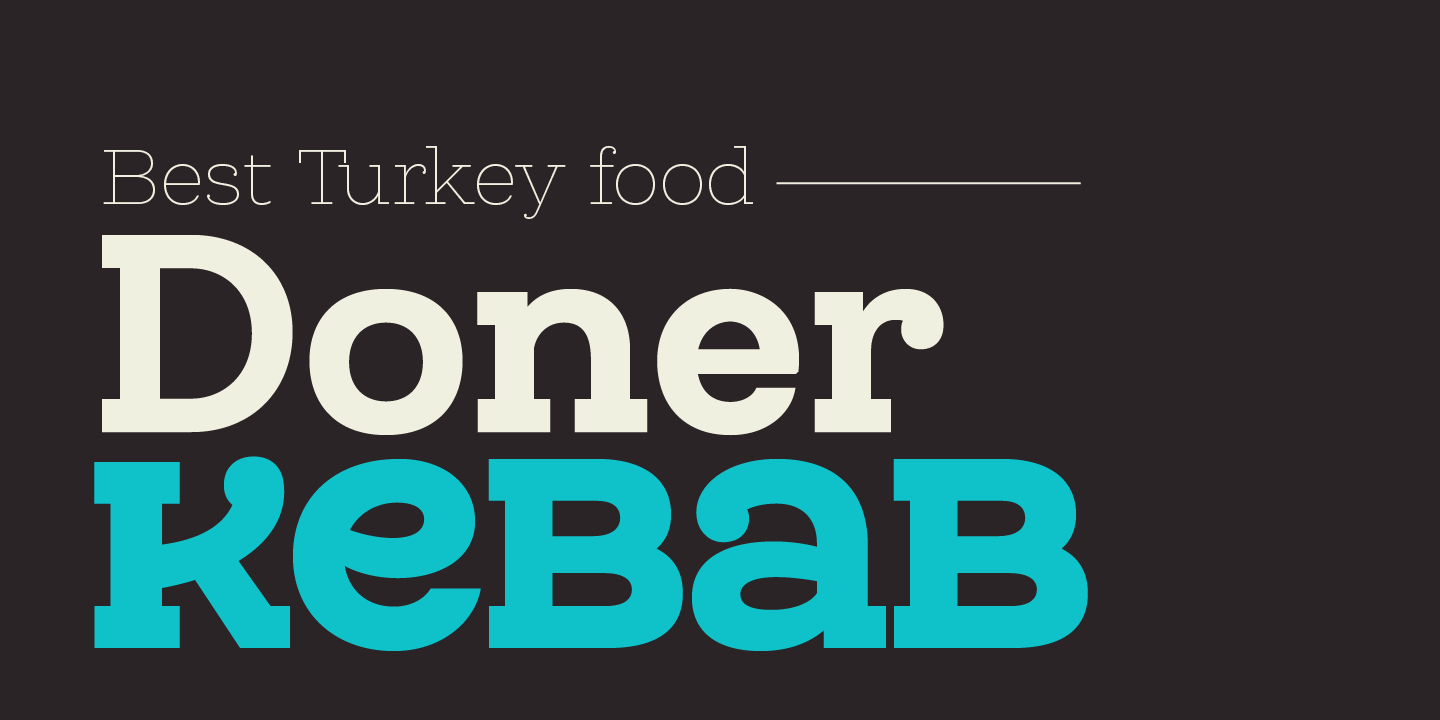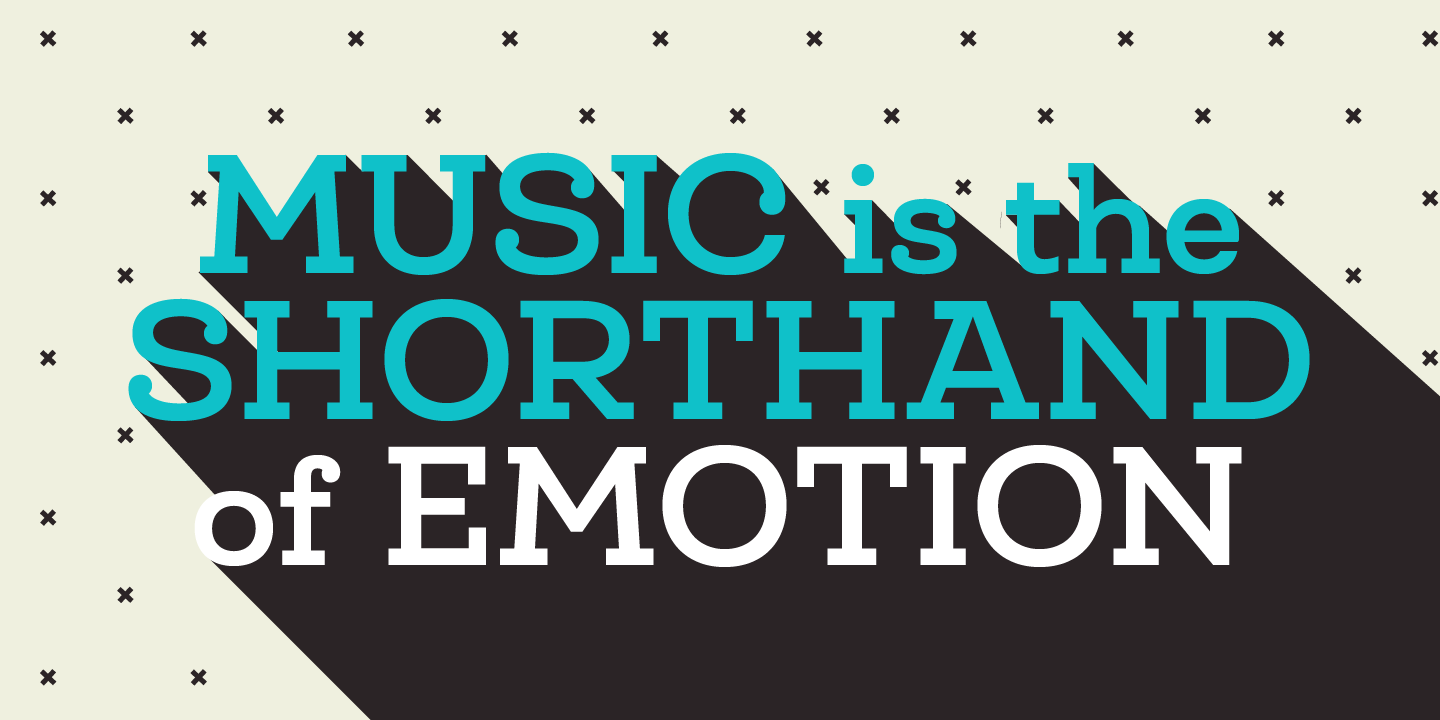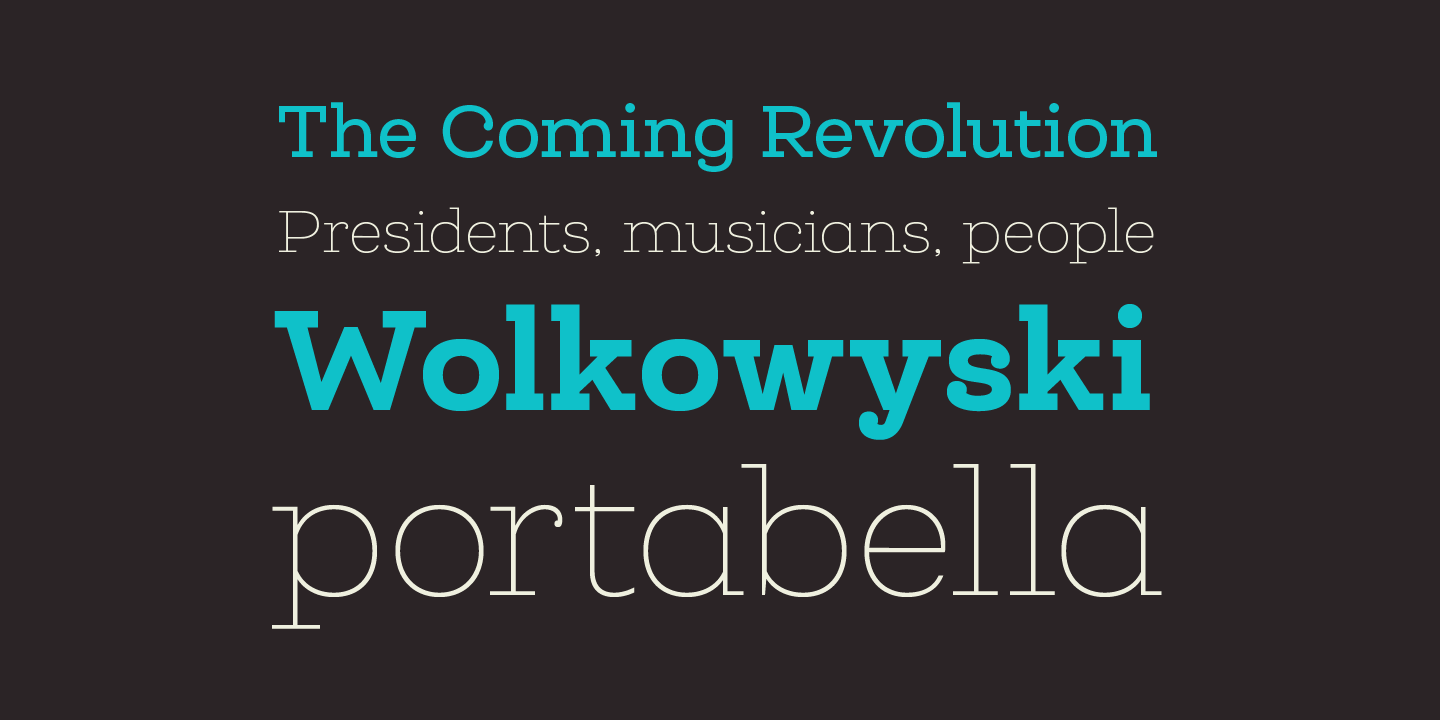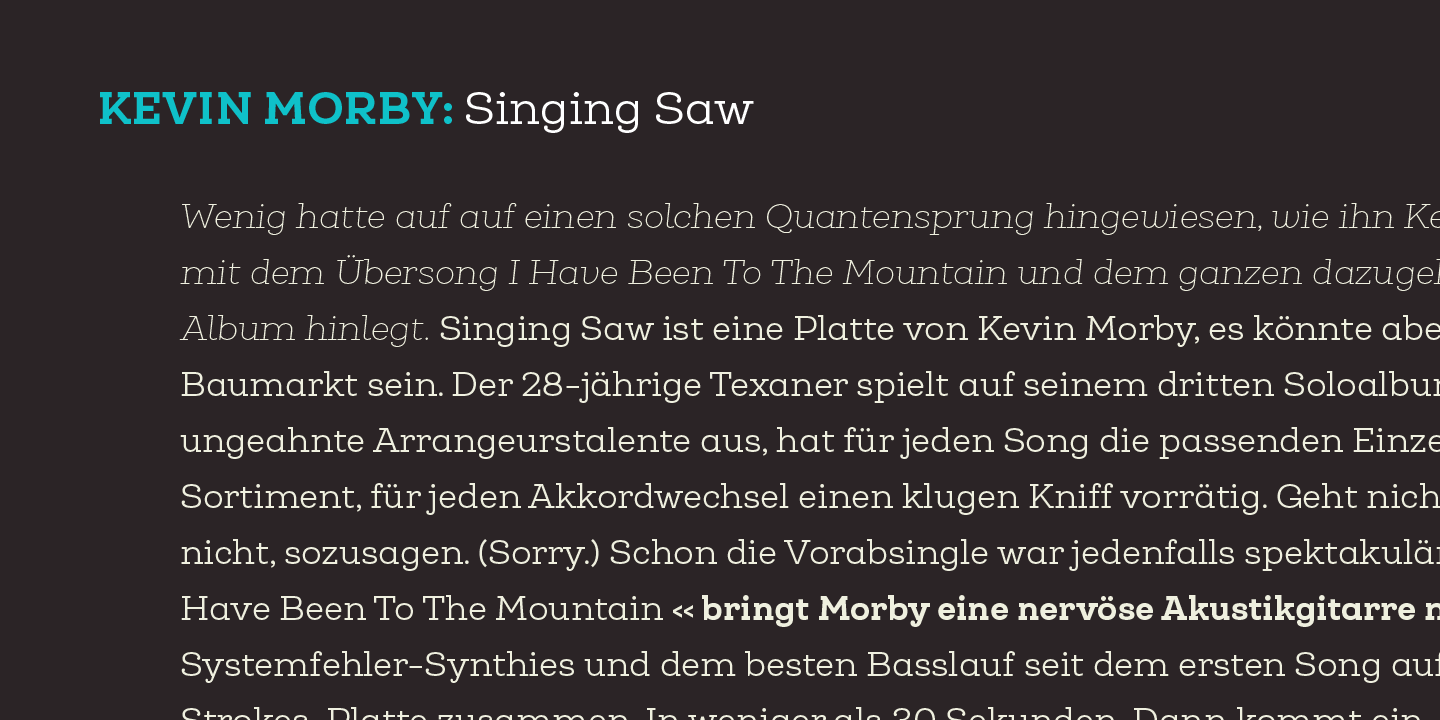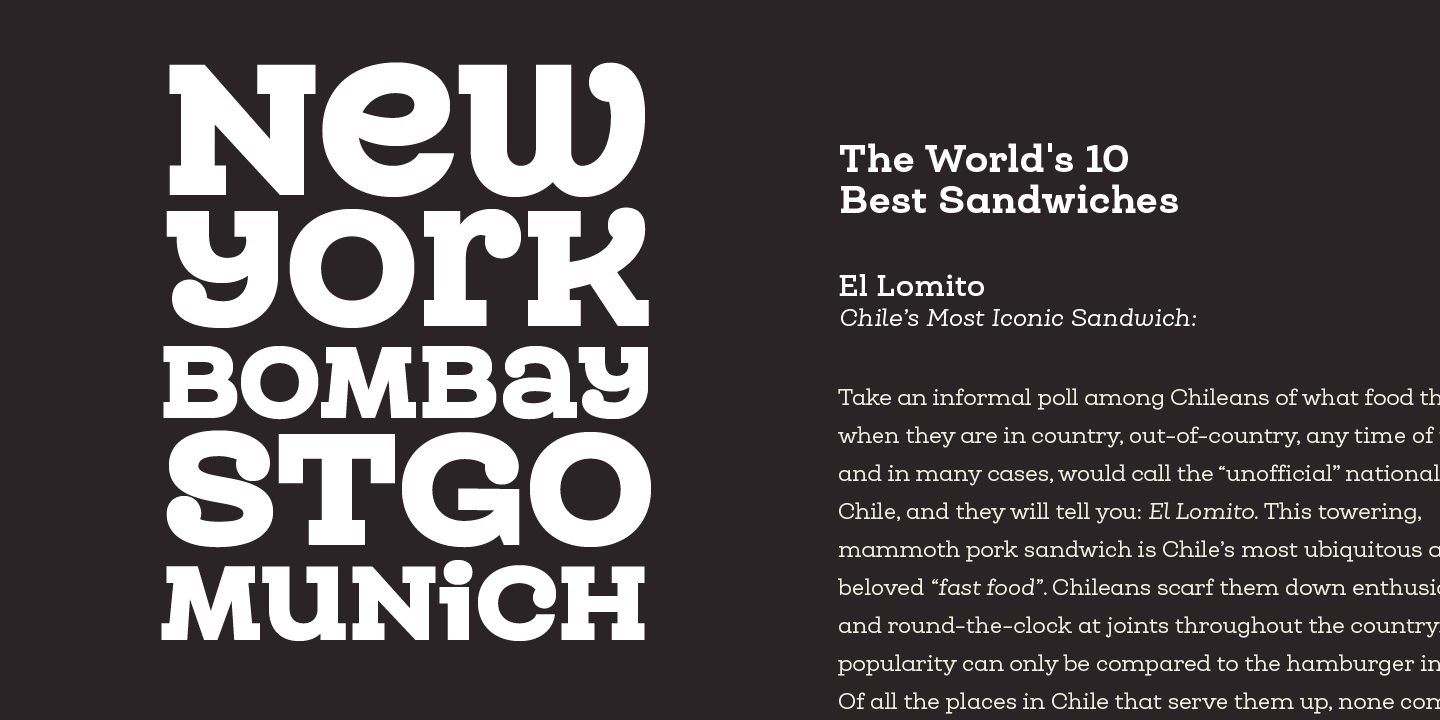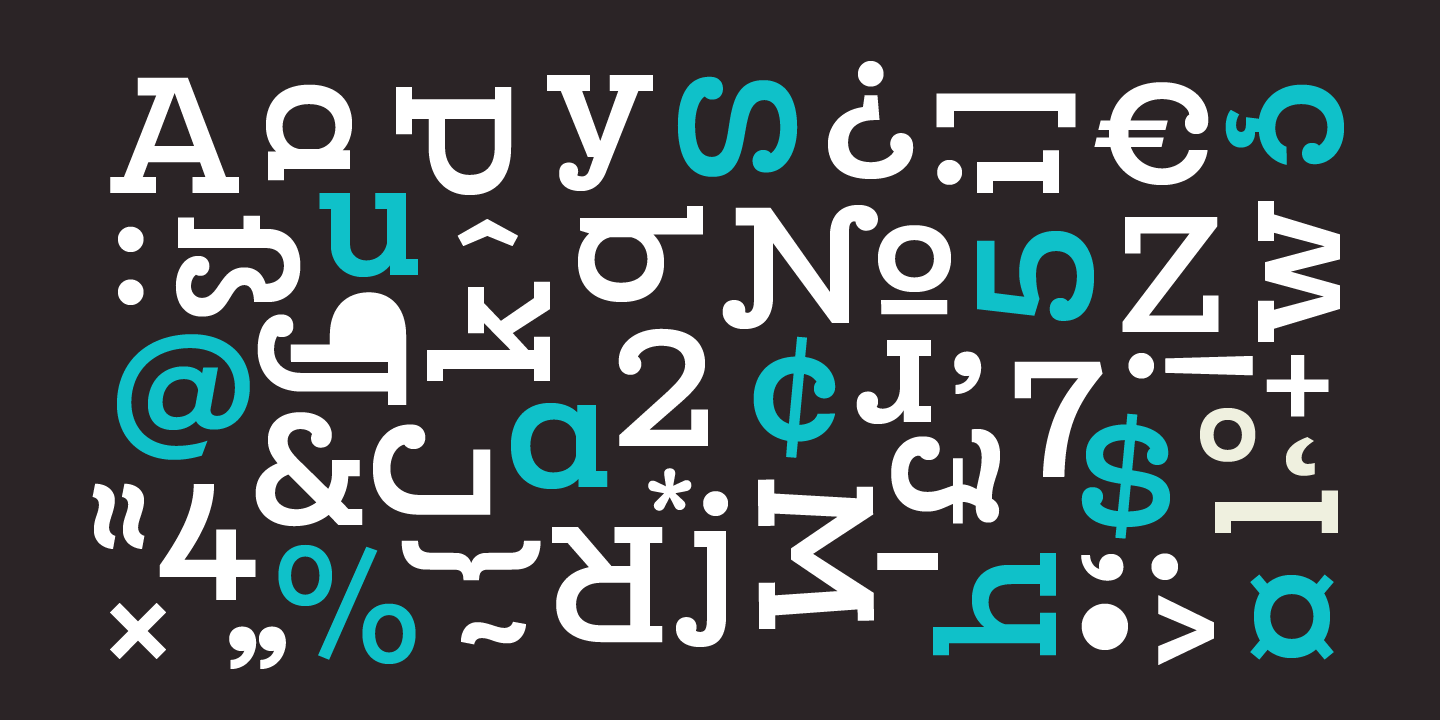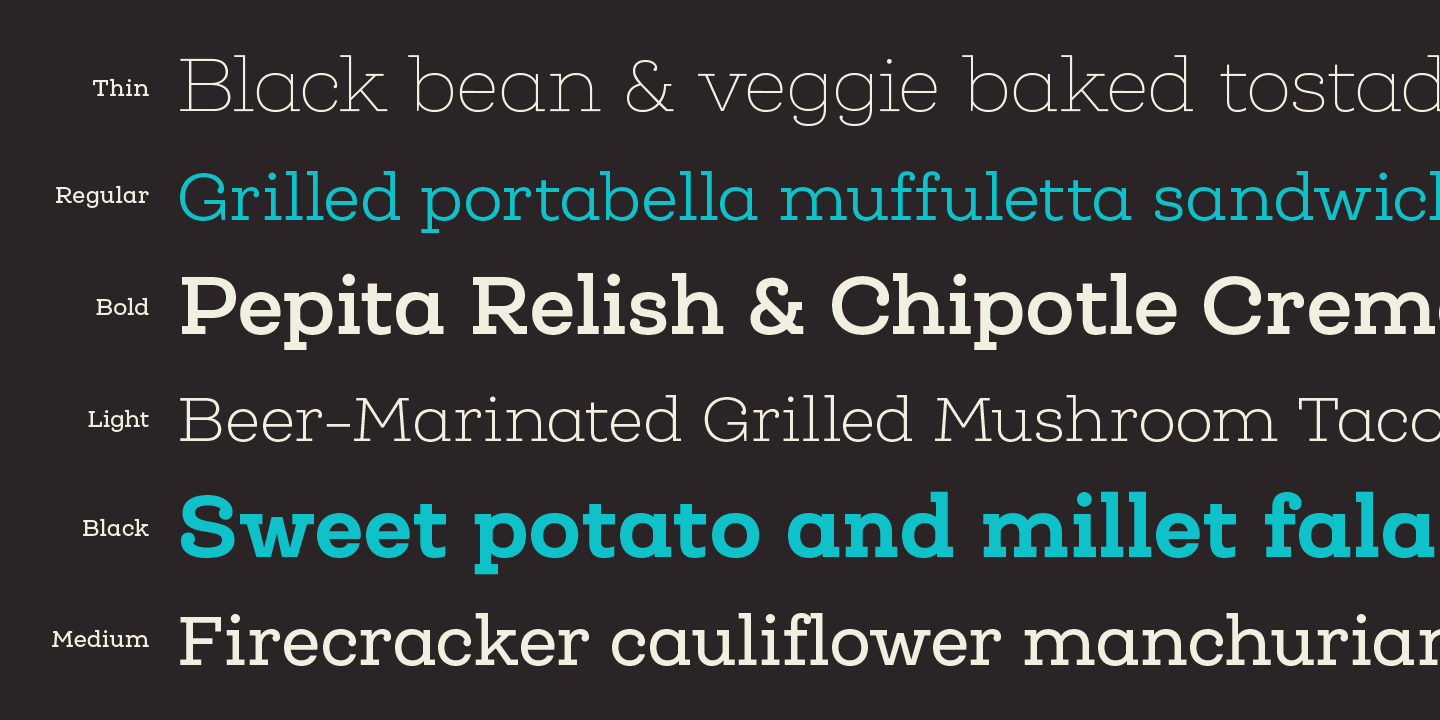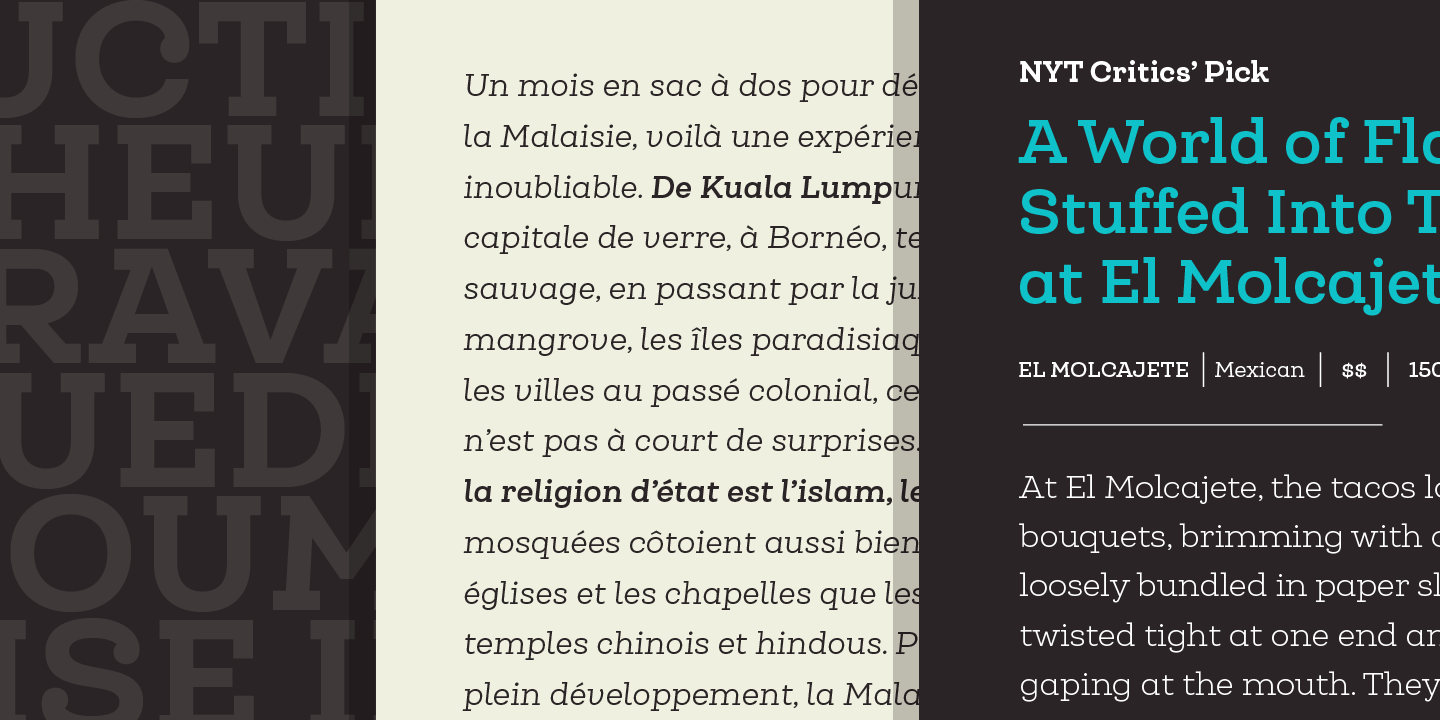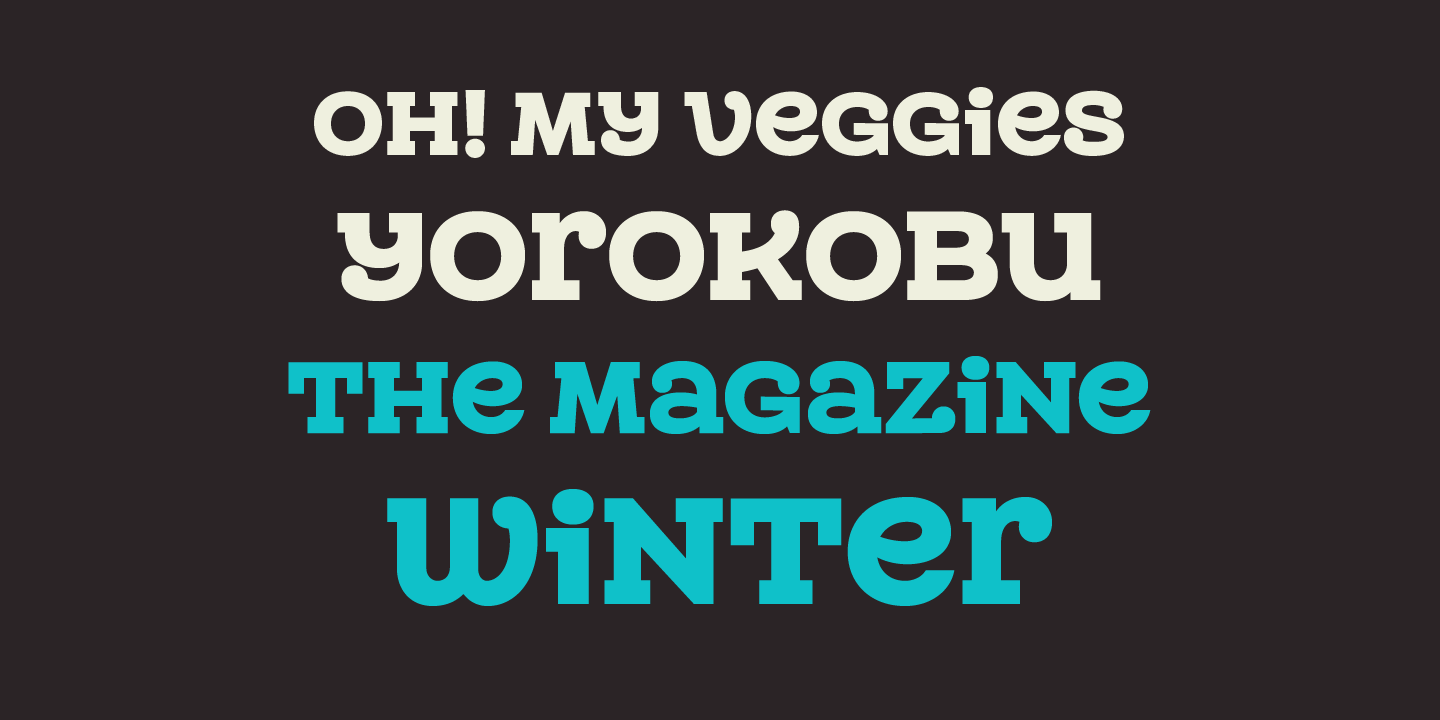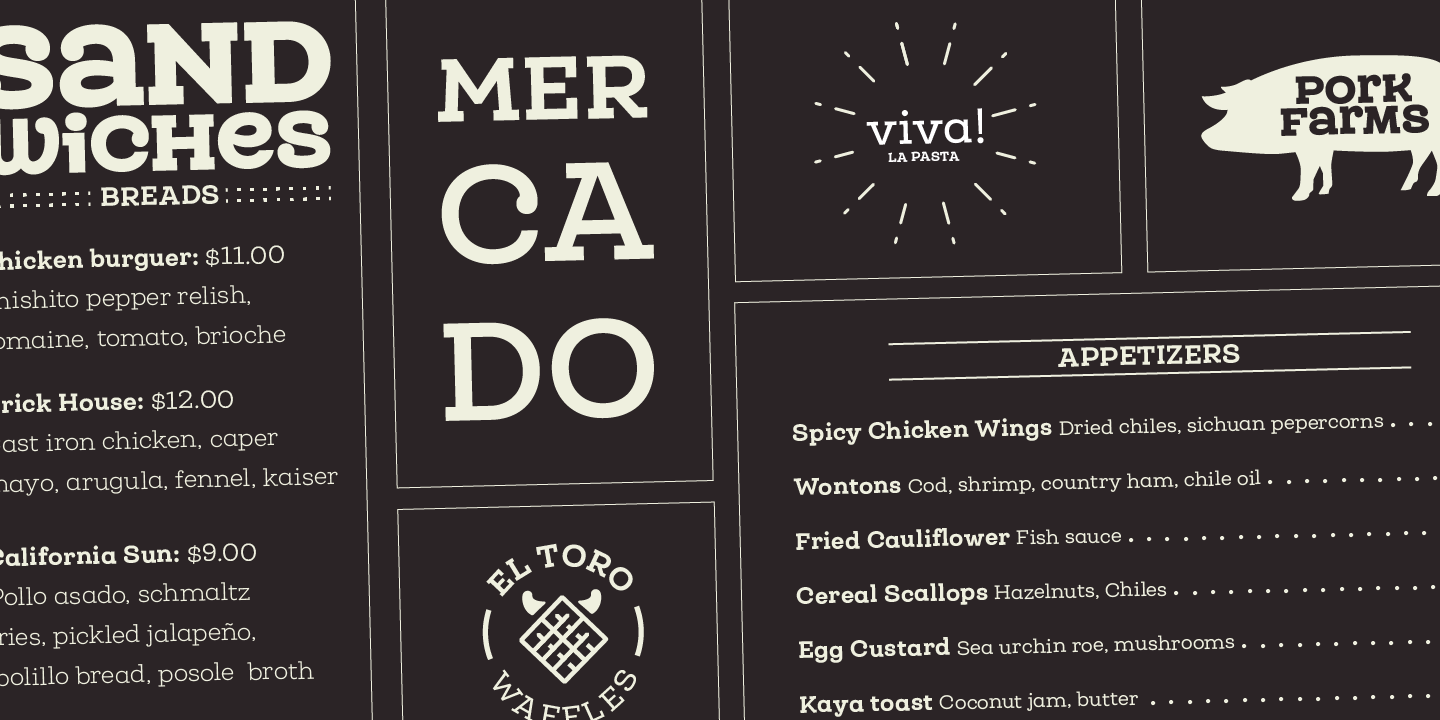
The font is inspired by Modern and Grotesk styles. The former is shown in some characteristic features such as teardrop terminals, which give the typeface an attractive unique look, making it an ideal choice for logotypes and labelling. The latter, with its rationality, makes Queulat a stable and strong face for headings and subheadings. The combination of styles can be clearly seen by comparing the regular with the alt version. The regular version is more simple than the alt one. Differently, the alternative version possesses more features of the Modern style, like teardrop terminals in ‘k’ and ‘v’.
Queulat also comes with a Unicase version, in which a higher number of shapes can be found, resulting in a unique colourful display.